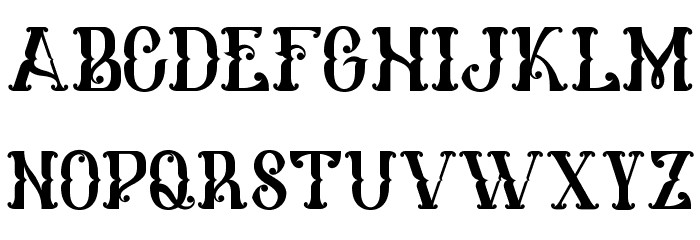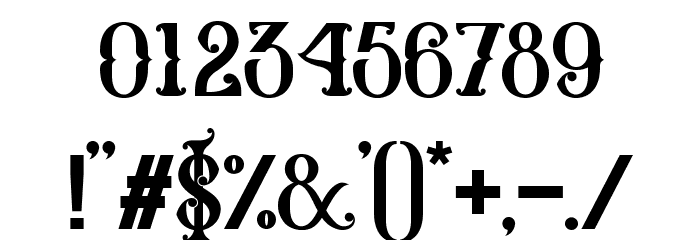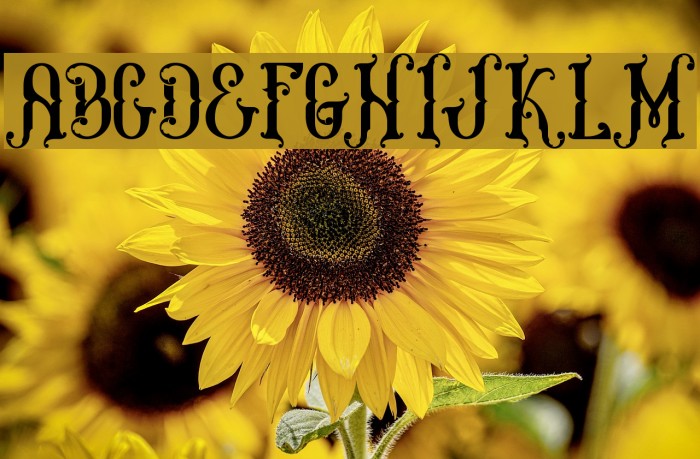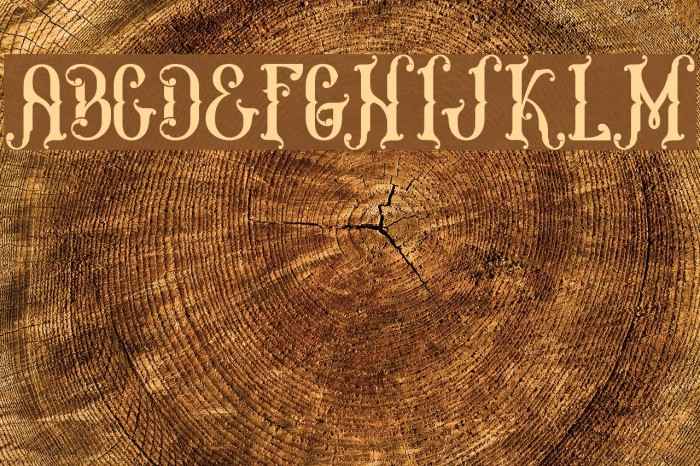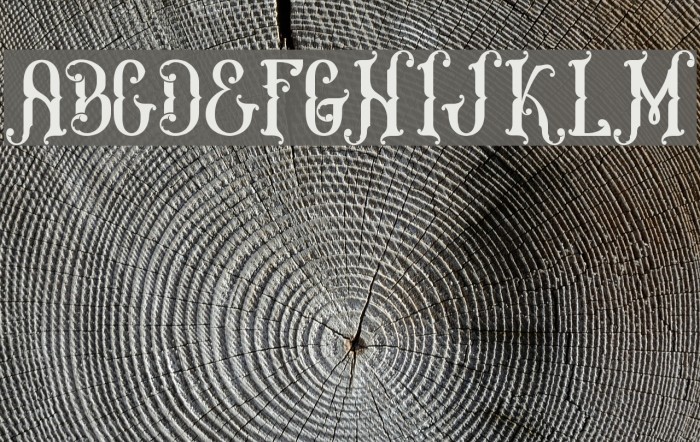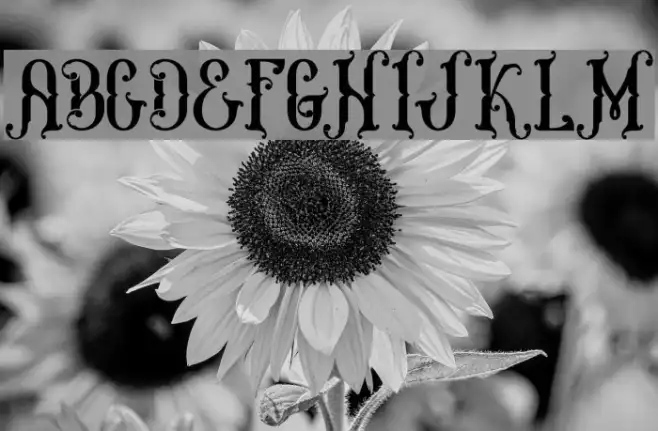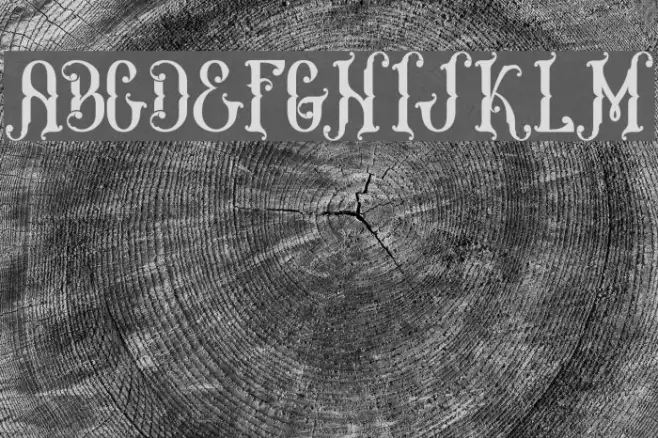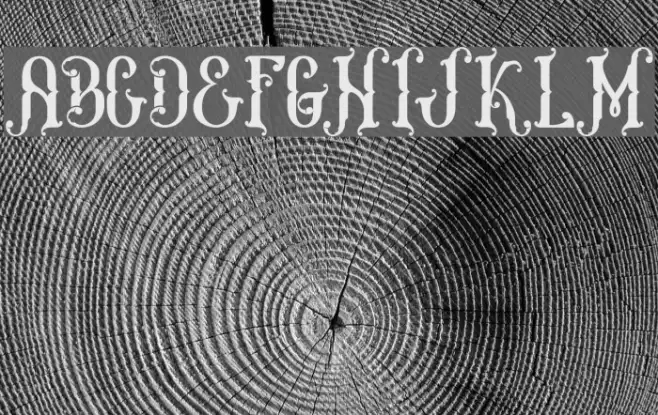
MelanesiaRegular Font
This font features a decorative and ornate style with intricate curls and embellishments on each character. The uppercase letters are particularly elaborate, with swirls extending from the serifs, giving it a unique and artistic flair. The lowercase letters maintain the decorative theme but with slightly less embellishment, ensuring readability. The numerals are bold and consistent with the overall decorative style, making them stand out. Special characters are also designed with the same ornate details, ensuring a cohesive look across all glyphs.
An ornate and decorative font with intricate curls and embellishments.
- Proposed Projects: Ideal for use in invitations, posters, branding, and any project requiring a touch of elegance and creativity.